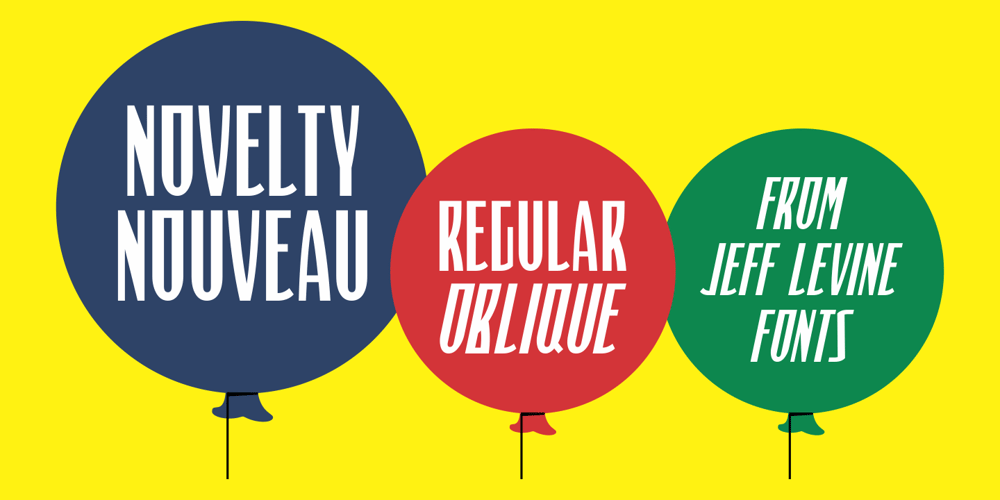
Novelty Nouveau JNL Font Family was designed by Jeff Levine and published by Jeff Levine. Novelty Nouveau JNL contains 2 styles and family package options. Novelty Nouveau JNL gets its name from its source of inspiration – the cover of a 1919 piece of sheet music for the novelty tune “America Never Took Water (And America Never Will)”This Art Nouveau condensed sans serif type design is available in both regular and oblique versions.